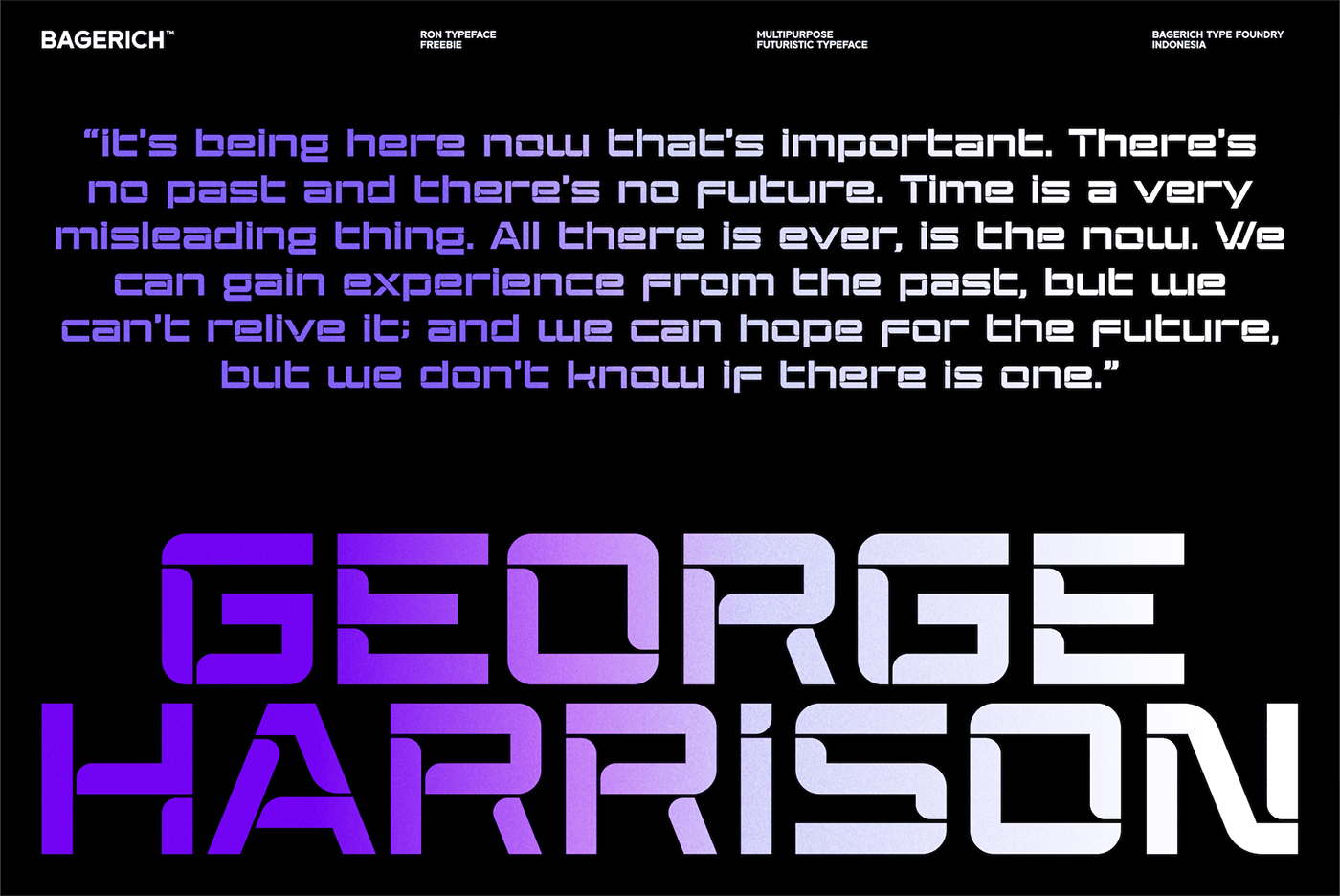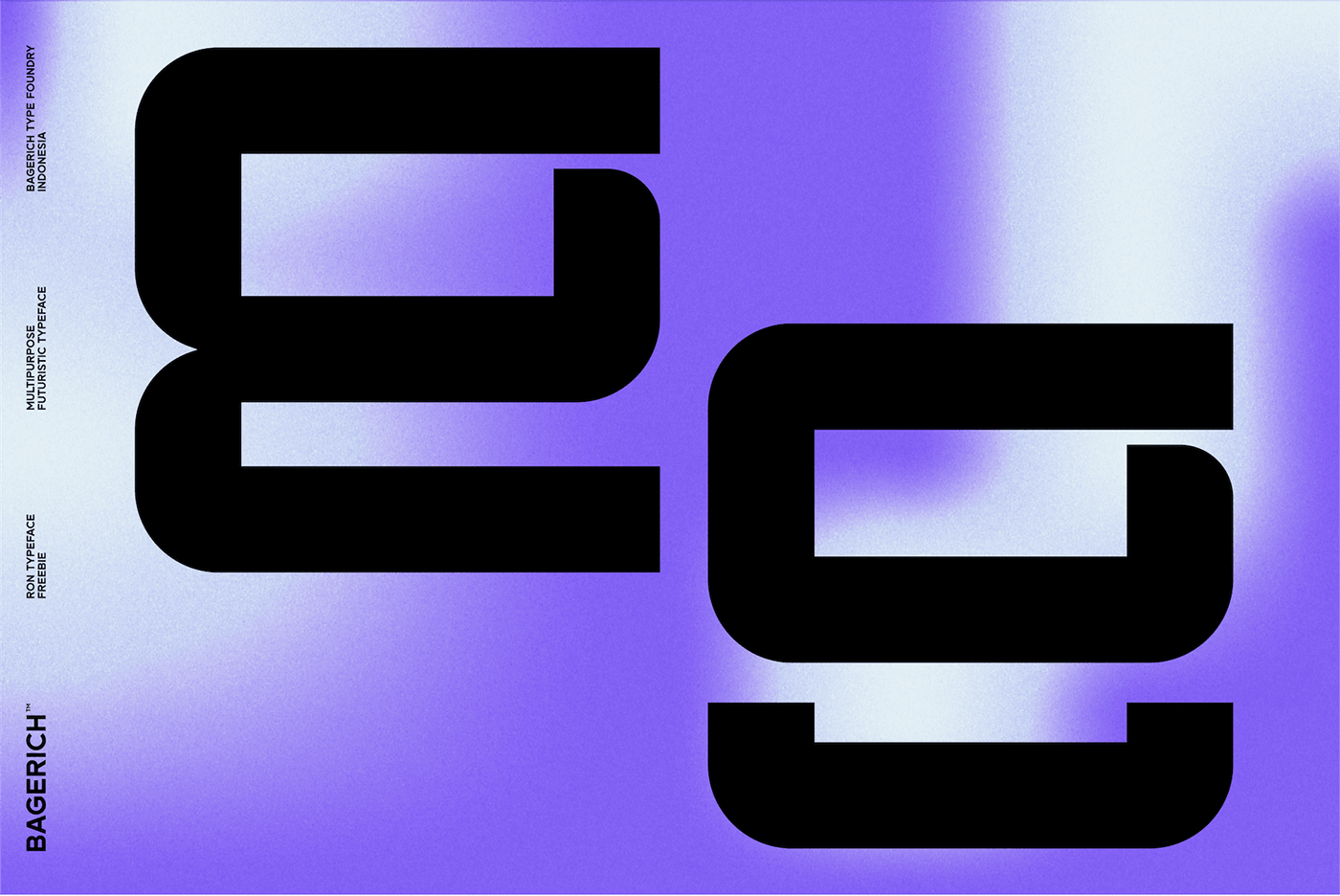
RON is futuristic modern free font from Bagerich Type Foundry that's Inspired by electric vehicles. It features upper & lowercase characters, multilingual characters, numbers & punctuation. It’s well suited for use in the tech & gaming space for logos, titles, packaging, web design, apps & much more